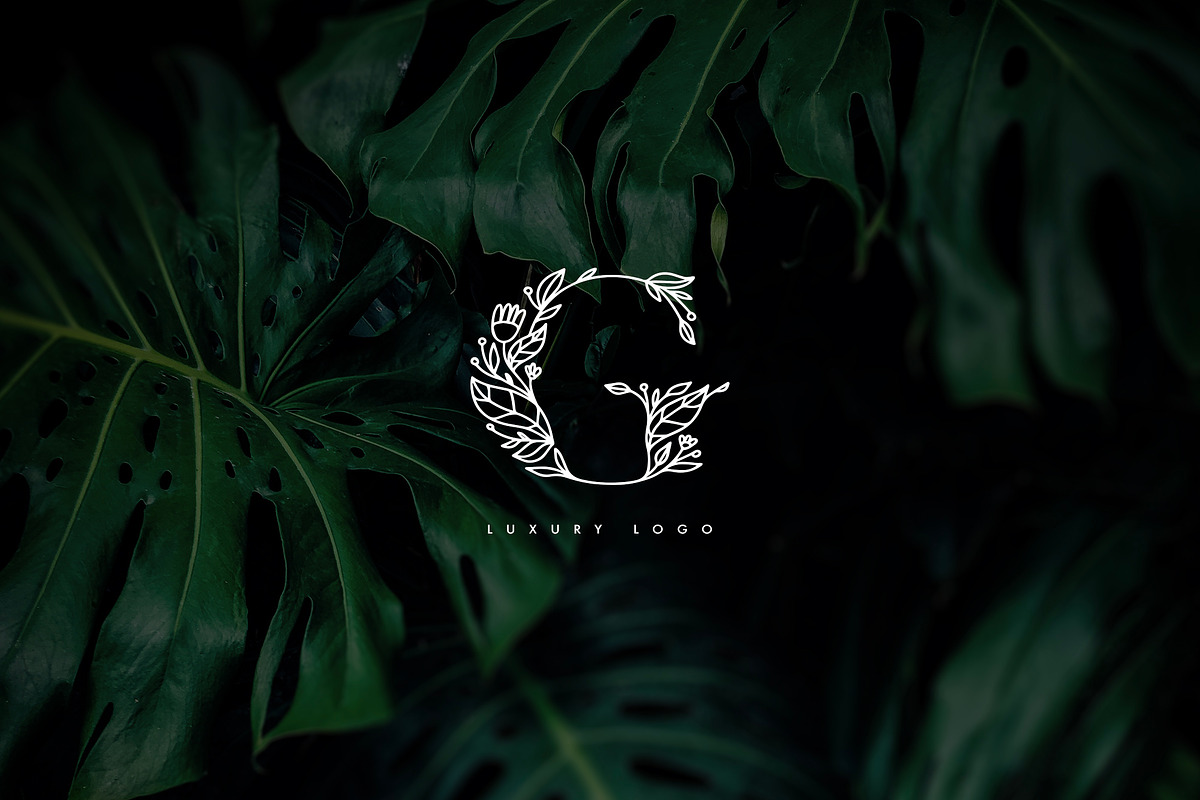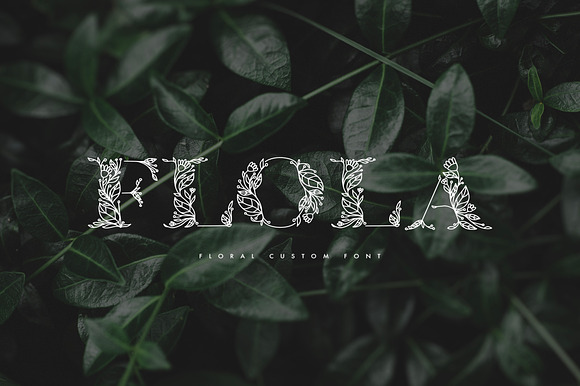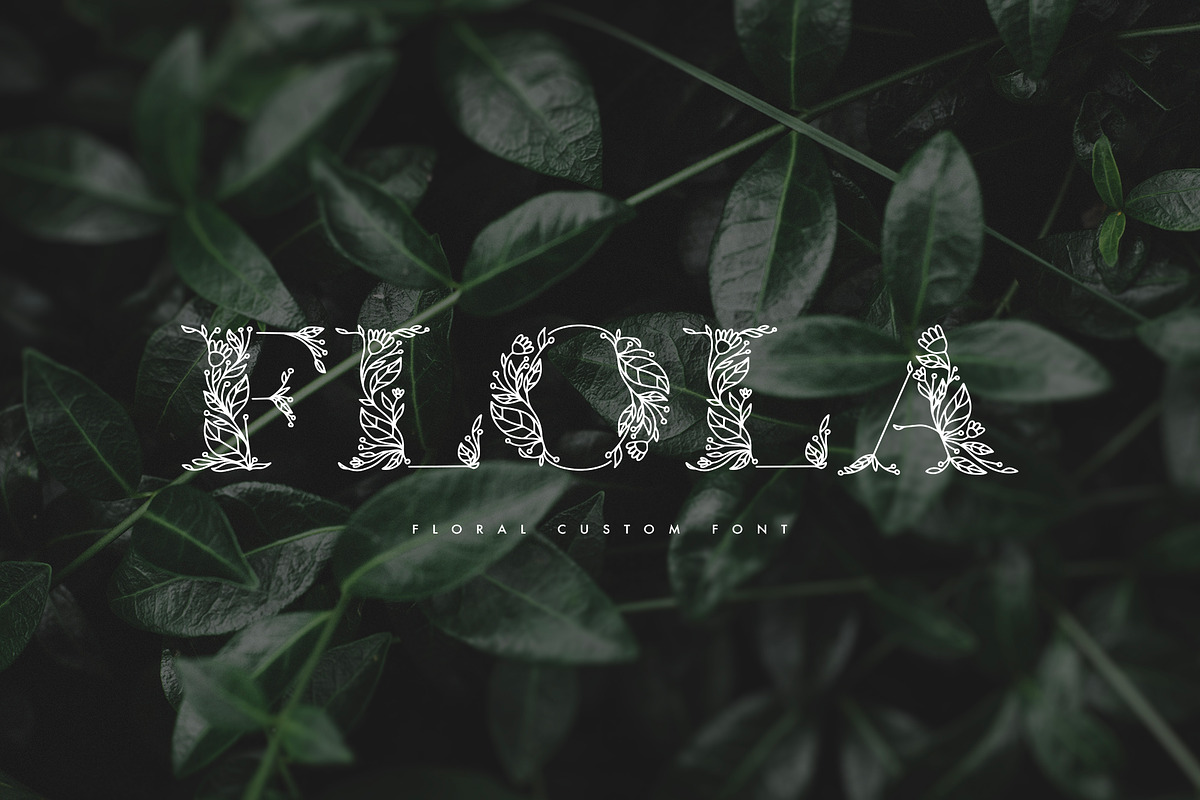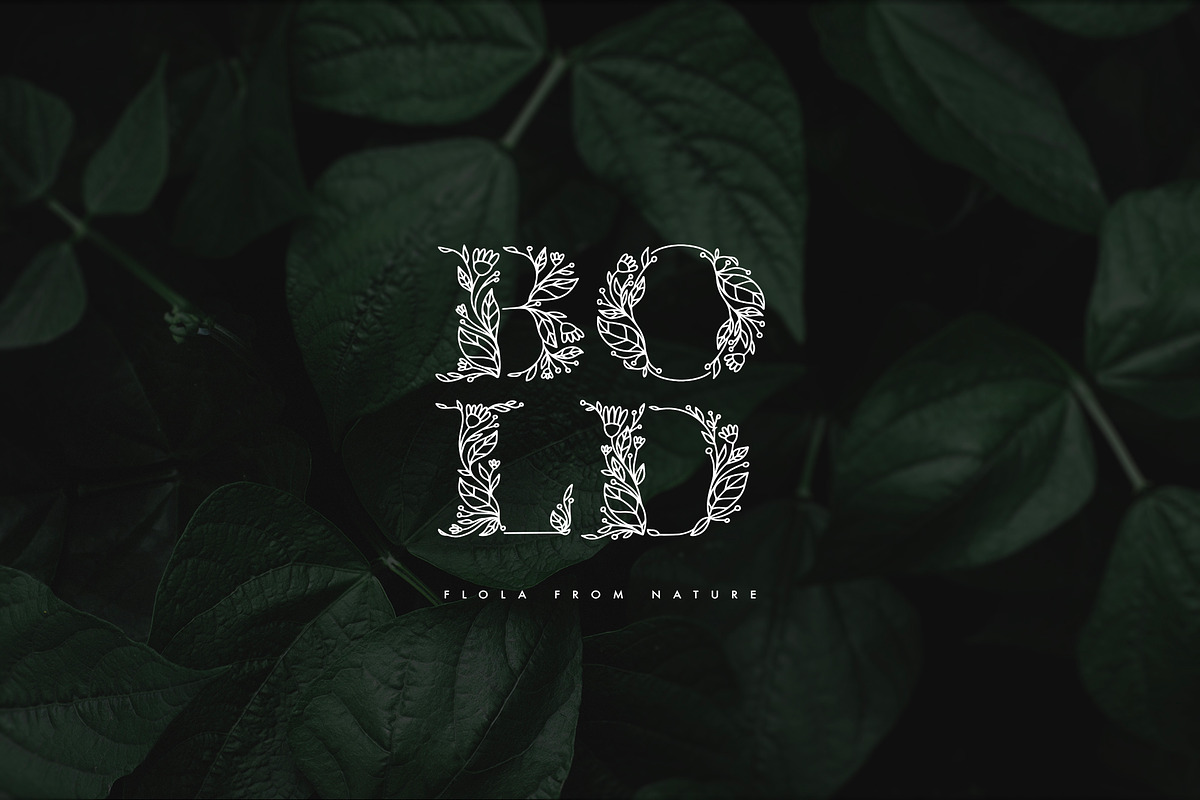
Flola Hand Drawn Font
This font is drawn with a composition of leaves and flowers so that it forms like letters. We do not provide lowercase and number versions, because these fonts are used for titles and logos. By using this hand drawn font, you will get a classy and luxury design
- We do not provide lowercase and number versions, because these fonts are used for titles and logos.
Flola Hand Drawn Font by freeject.net fits naturally into Branding, posters, packaging, typography.